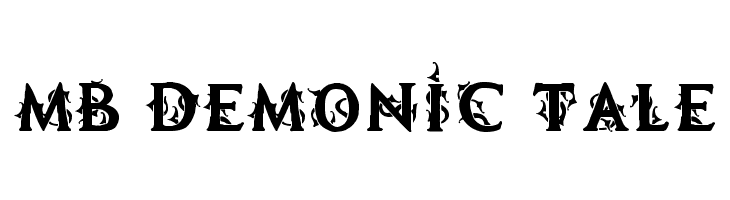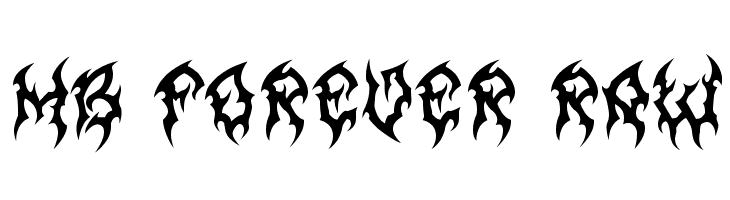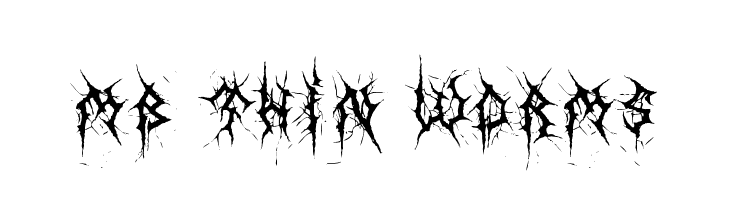
A gothic-inspired font with thorn-like embellishments and bold, dramatic strokes.
A bold, thorny font with a gothic, horror-inspired aesthetic.
A bold, aggressive font with sharp, jagged edges and a tribal flame-like design.
A gothic, thorny font with intricate, sharp embellishments and dramatic flourishes.